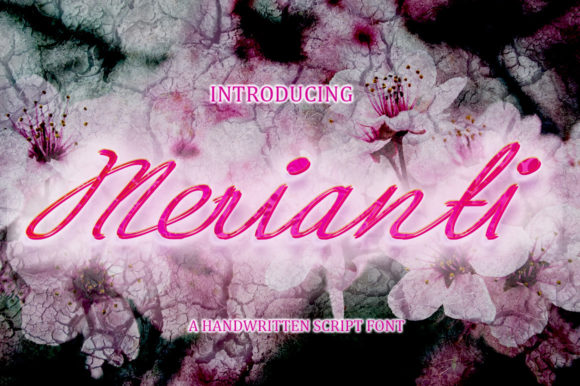
Prepare yourself to get mesmerized by the enchanting Merianti Script, a meticulously designed script that will leave an unforgettable mark on your creative endeavors. Dive into the profound world of calligraphy with this exceptional font, crafted to evoke emotions and add a touch of elegance to your designs.
Each stroke of Merianti Script is a testament to the passion and artistry of Adhem Studio, renowned for their dedication to creating fonts that resonate with your soul. Experience the effortless flow of this handwritten masterpiece, allowing your words to dance across the page with grace and allure.
Let Merianti Script captivate your audience, whether you're crafting intimate invitations, heartfelt love letters, or social media posts that demand attention. This font is your passport to artistic freedom, empowering you to convey your messages with undeniable style and sophistication.
Whether you're a seasoned designer or simply seeking to add a personal touch to your projects, Merianti Script is the perfect choice. Embrace the transformative power of this font and watch as your creations blossom into masterpieces that leave a lasting impression.